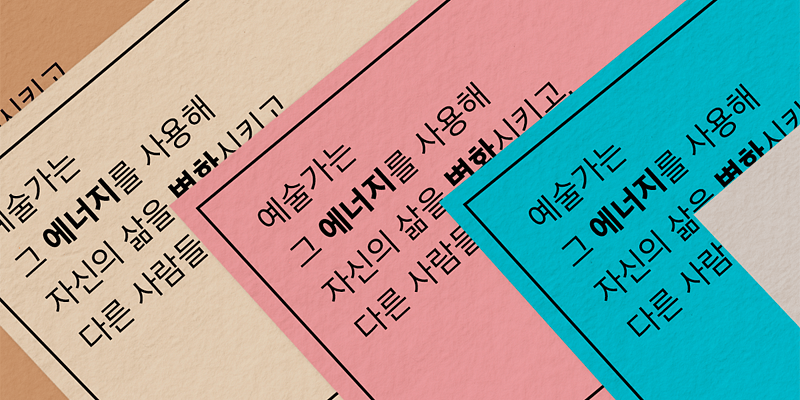
Sandoll GothicNeo2 is a premium Gothic font with a superfamily of varying weights.
A part of the premium font Sandoll Neo Series, the font combines Sandoll’s technique and extensive experience in font making, modernizing the traditional element of Sandoll Gothic.
It is optimized for user convenience, and its square and non-square forms give the font a stable yet modern look.